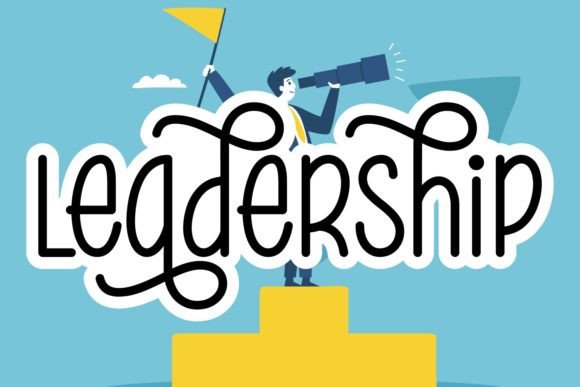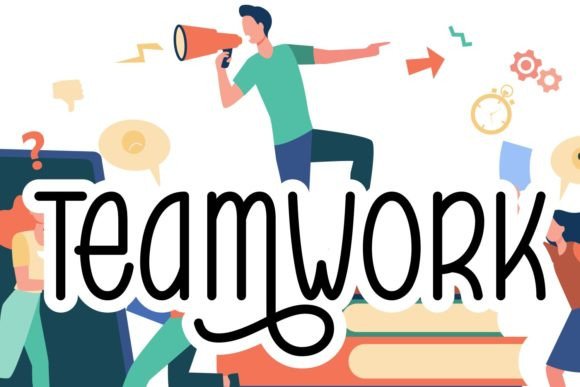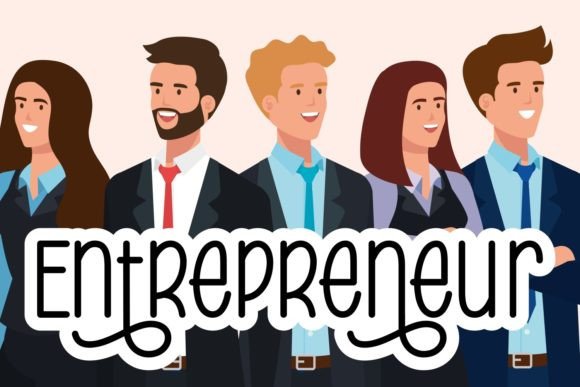
Leadership Font
About Leadership Font
Leadership, with its friendly and playful handwritten style, serves as a lively font that breathes life into your creative endeavors. It’s a versatile choice, particularly well-suited for back-to-school designs, storybook covers, name tags, or any project that seeks to embody a youthful and spirited vibe.
The amiable and fun nature of Leadership’s letters adds a touch of approachability to your designs. Whether you’re working on educational materials for a school setting or creating visuals for a children’s storybook, this font brings a sense of friendliness that resonates with a youthful audience.
For back-to-school designs, Leadership offers a dynamic and engaging element. The playful strokes of the font can be utilized to create visually appealing posters, banners, or other materials that capture the excitement of the new school year. It’s a font that invites creativity and conveys a sense of approachable authority.
In the realm of storybook covers, Leadership brings characters and narratives to life. The handwritten charm adds a personal and relatable touch, making it suitable for a wide range of genres, from playful children’s stories to lighthearted adventures.
Name tags, an essential component of many events, become more memorable with the friendly and fun aesthetic of Leadership. The font’s youthful vibe ensures that name tags are not just functional but also contribute to the overall positive atmosphere of gatherings and events.
The versatility of Leadership extends to any project where a youthful and spirited vibe is desired. Whether it’s creating eye-catching labels, designing engaging social media posts, or adding a touch of personality to stationery, this font proves to be a valuable asset.
In essence, Leadership is not just a font; it’s a creative companion that infuses your projects with a sense of fun and friendliness. Its handwritten style adds character and approachability, making it a perfect choice for bringing your creations to life, especially when targeting a youthful audience or aiming to convey a lighthearted and spirited message.